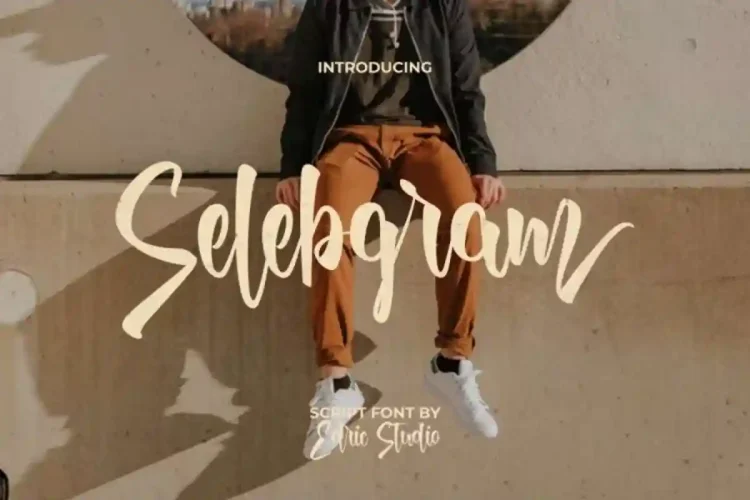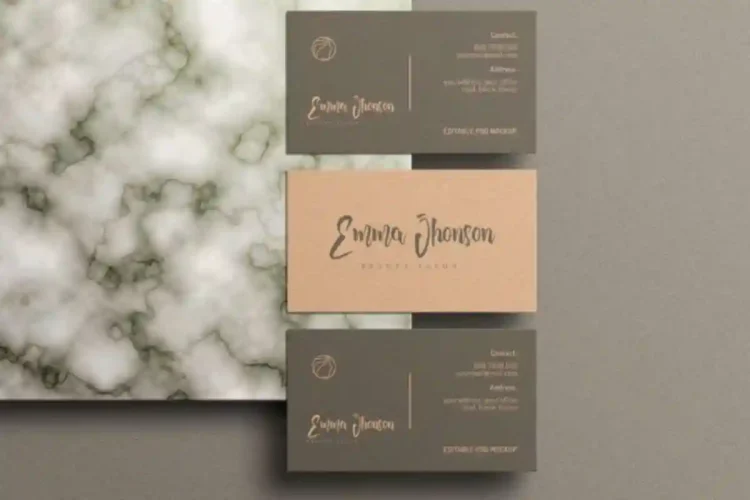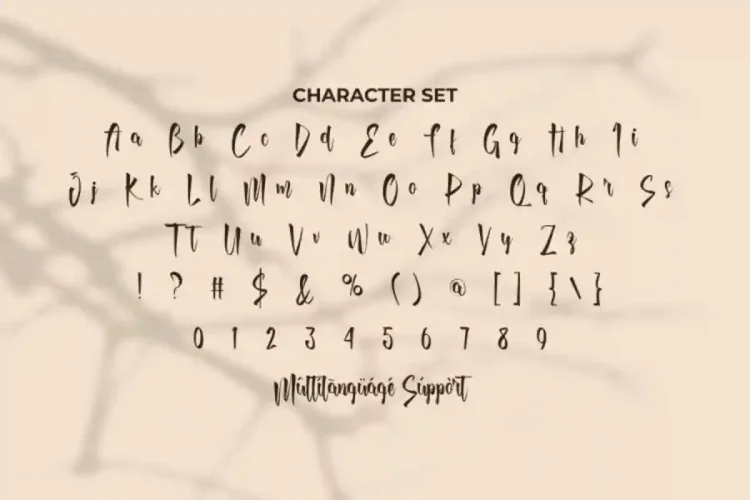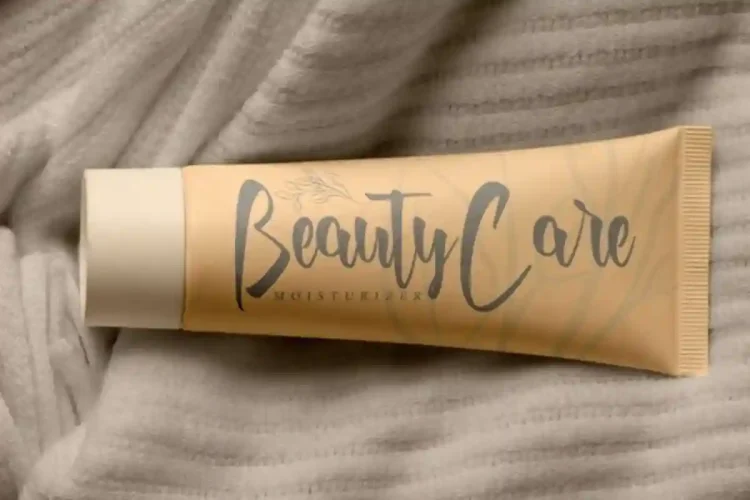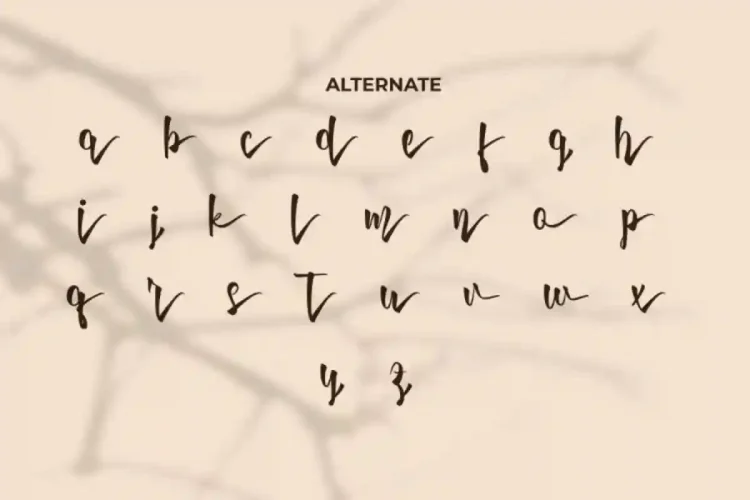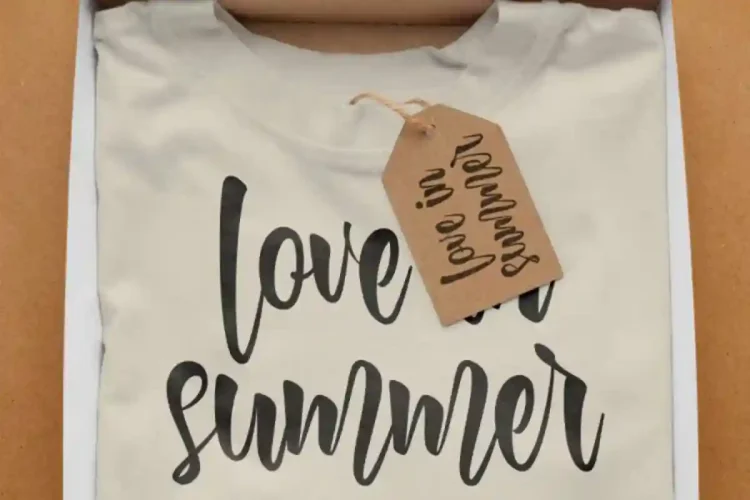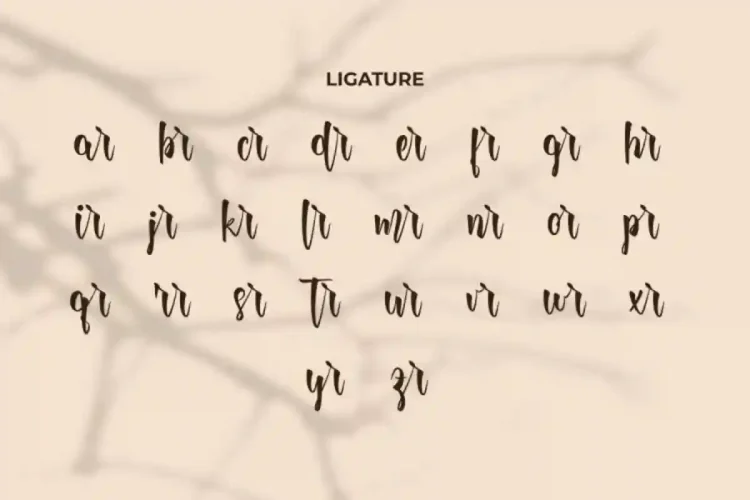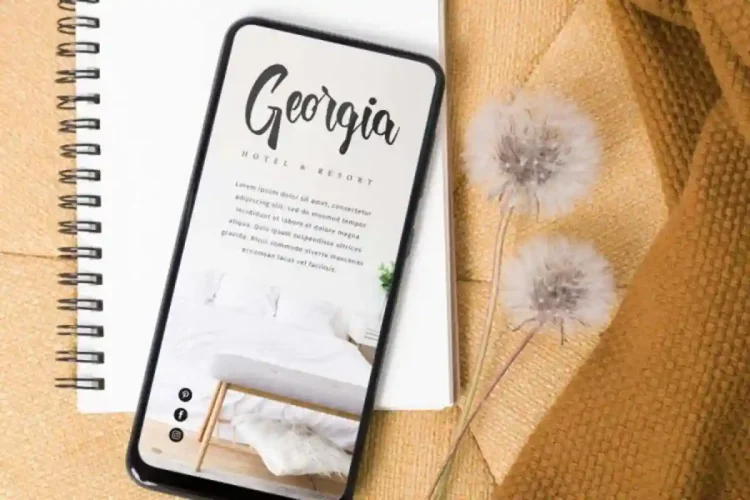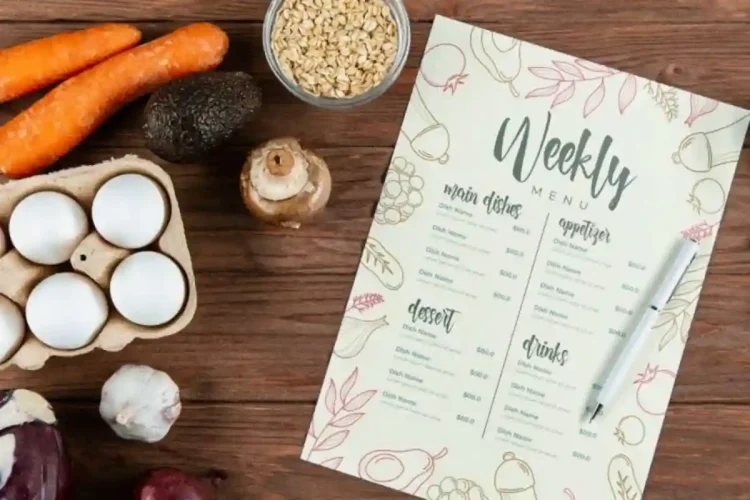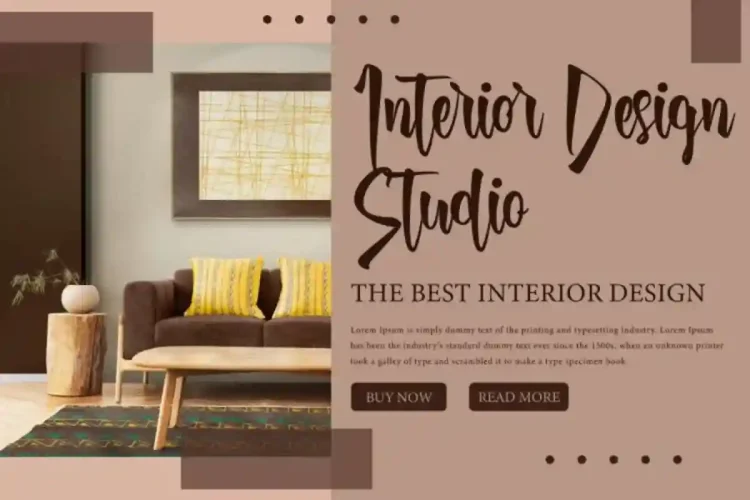
Selebgram Script Font , a stunning modern calligraphy script created by EdricStudio. Carefully crafted to make the font perfect and stylish, easy to read and suitable for any industry like, architect, cosmetic, fashion, furniture, photography, resort, restaurant, salon & spa, etc.
Selebgram Script Font This beautiful script typeface comes complete with uppercase and lowercase letters, numbers, punctuation, ligatures, and alternates. Its carefully balanced kerning and smooth character flow make it versatile for any design project. It has a stunning characters set, perfectly managed with well spaced and kerning.
Selebgram Script Font is a playful typeface with unique decoration in each character. It’s tested to work well in the Adobe Apps (Illustrator, Adobe InDesign, Adobe Photoshop) even work on Microsoft Word. PUA Encode Characters means you can access all the glyphs and other additional characters easily – Fully accessible without additional design software.